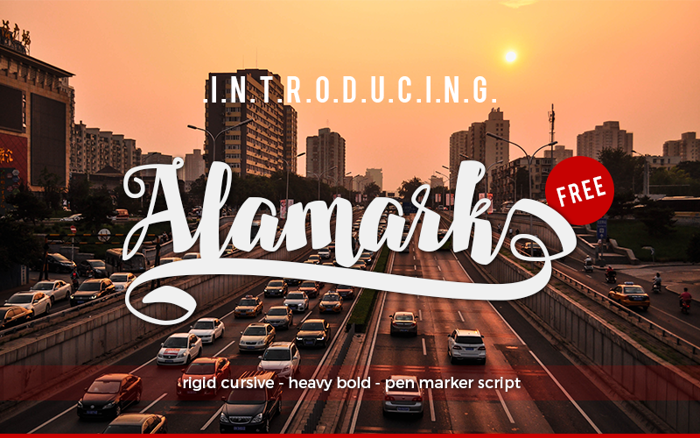
Alamark Lite Free Font
Introducing Alamark, a cursive font with heavy bold looking. Its look made by pen marker or chalk makes it the good for display like titling, logotype, branding, printed quotes, wedding invitation cards, social media headers, product packaging, home decor and a lot more.
A handful of swashes and more alternative character are also included in the Private Use Area, make you can access them easily even your application not support OpenType.